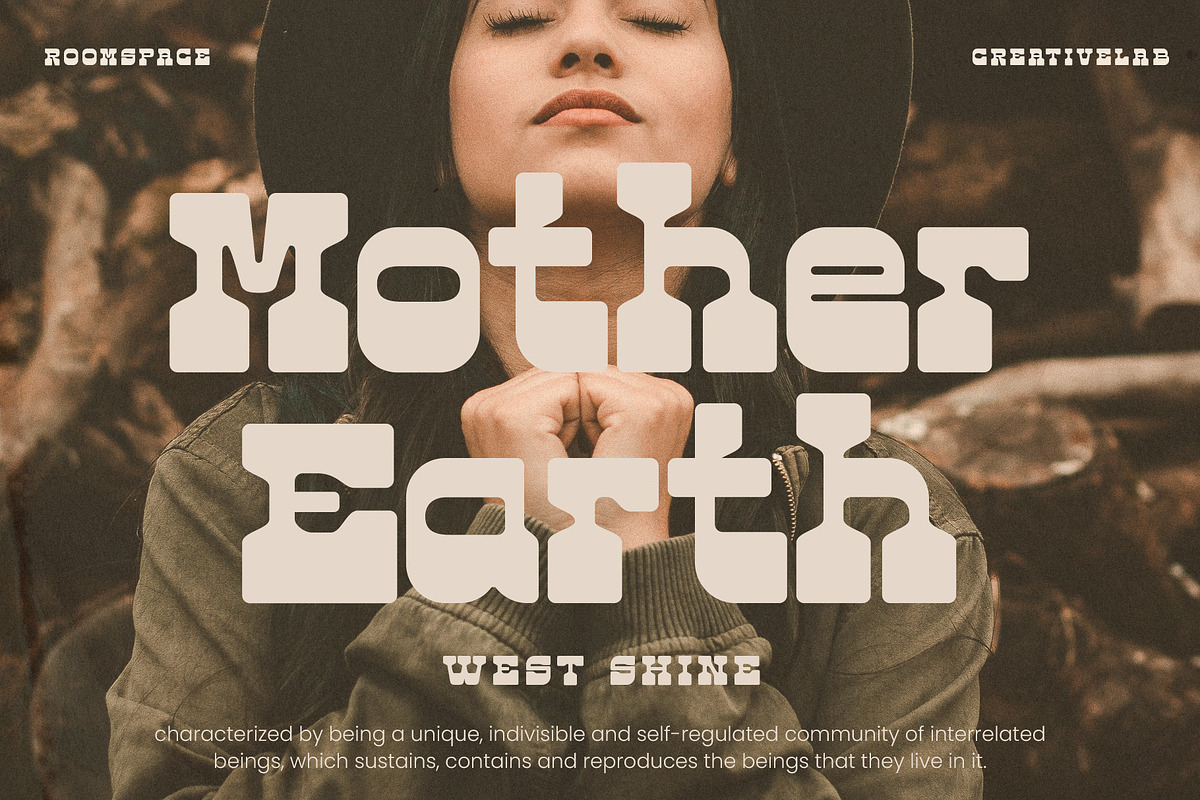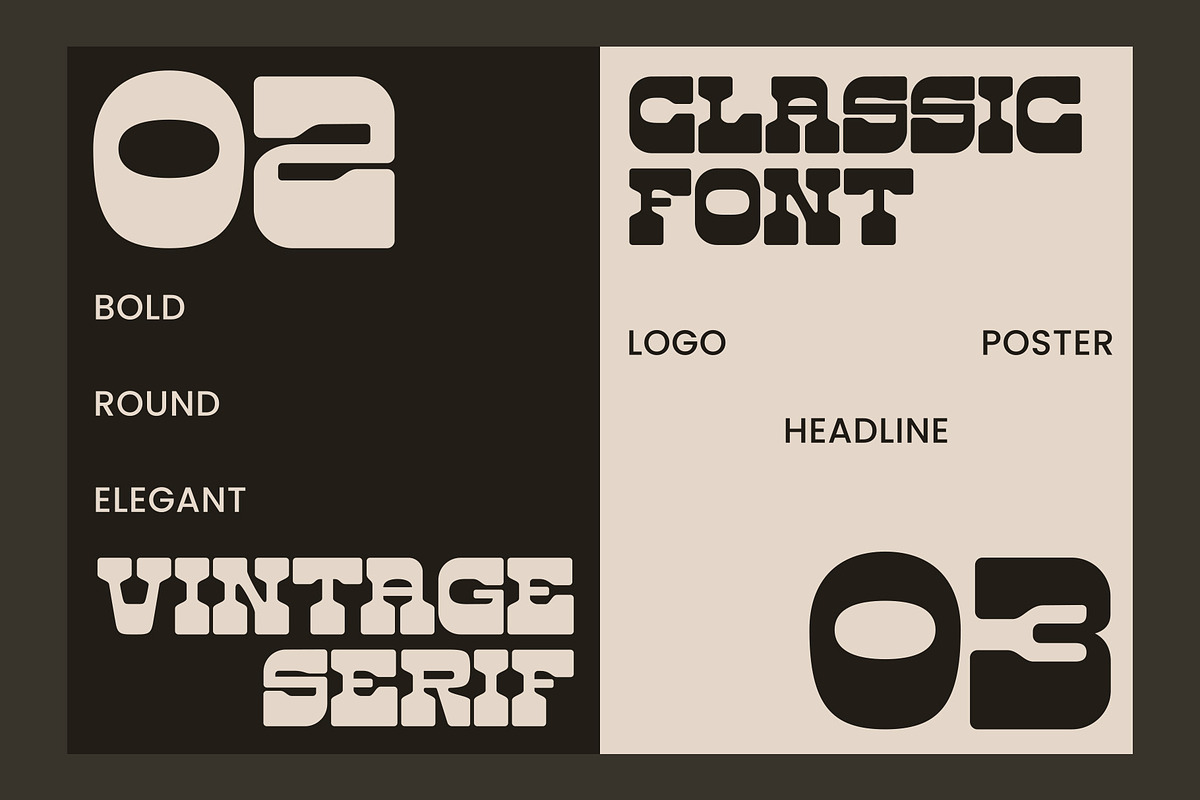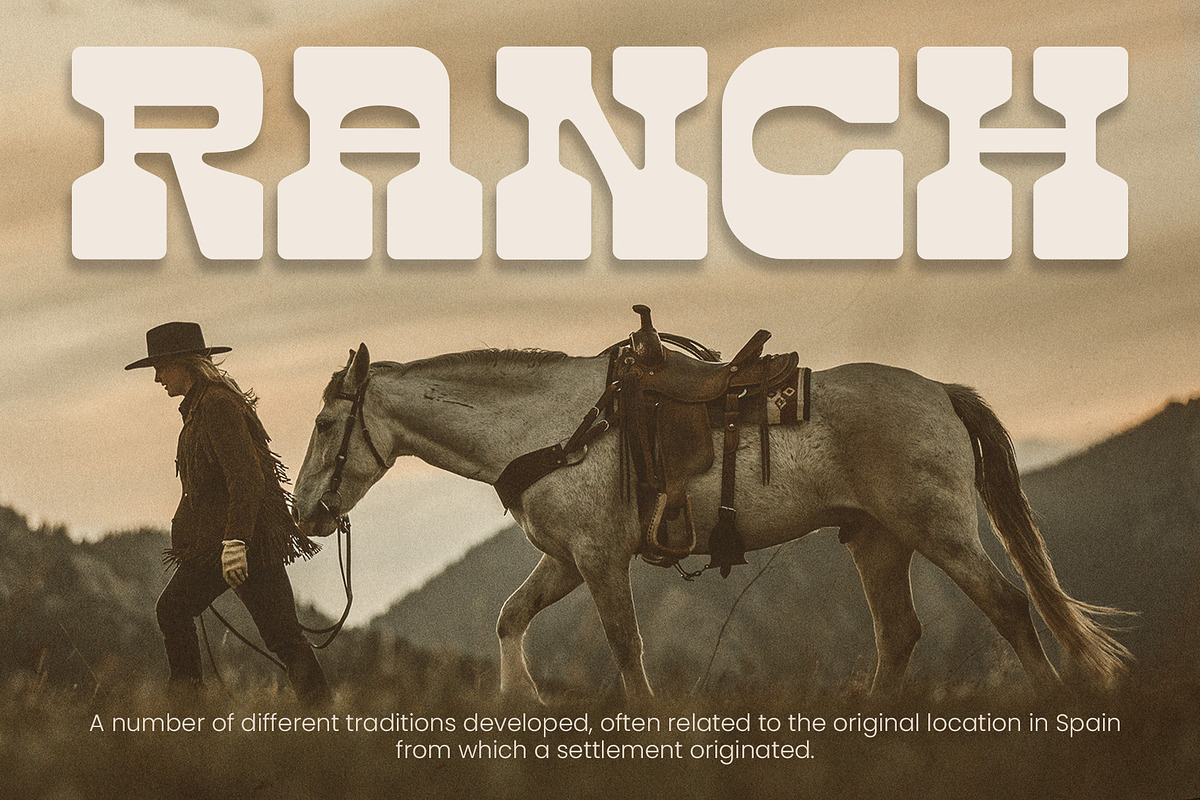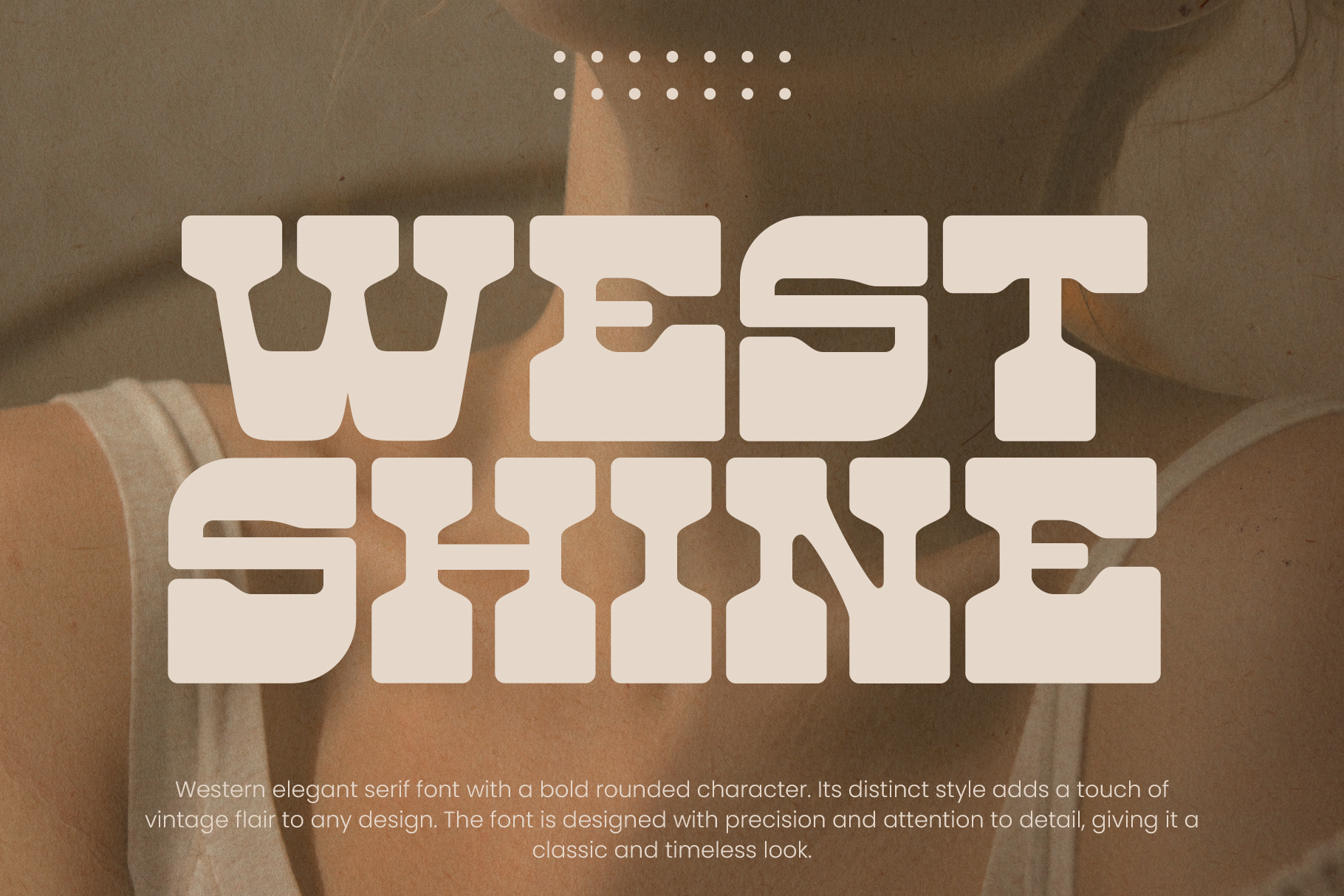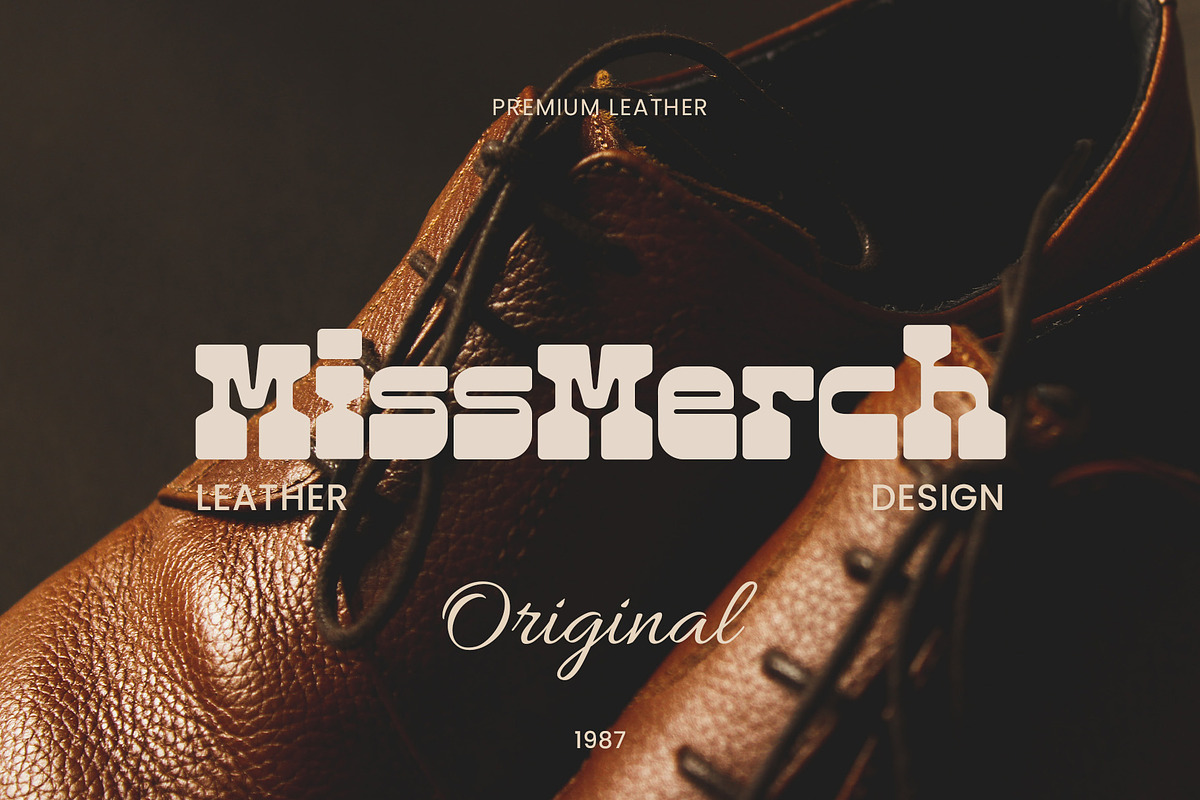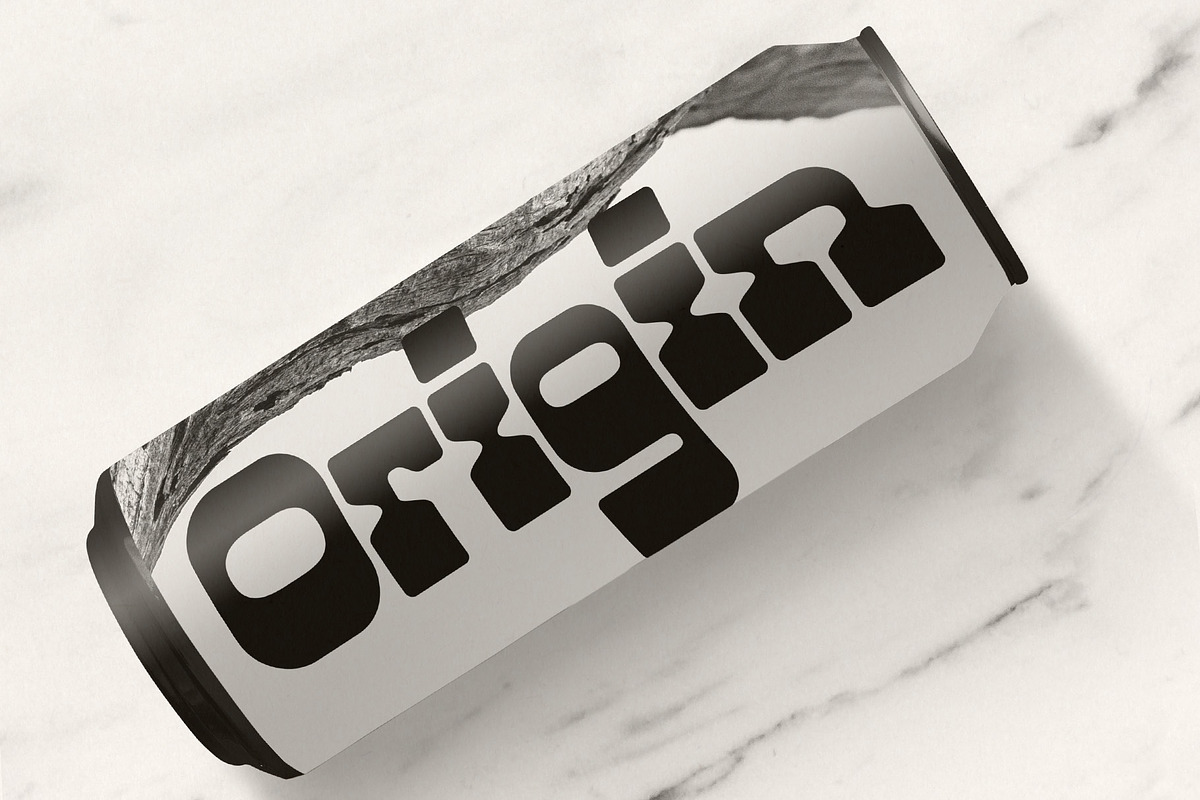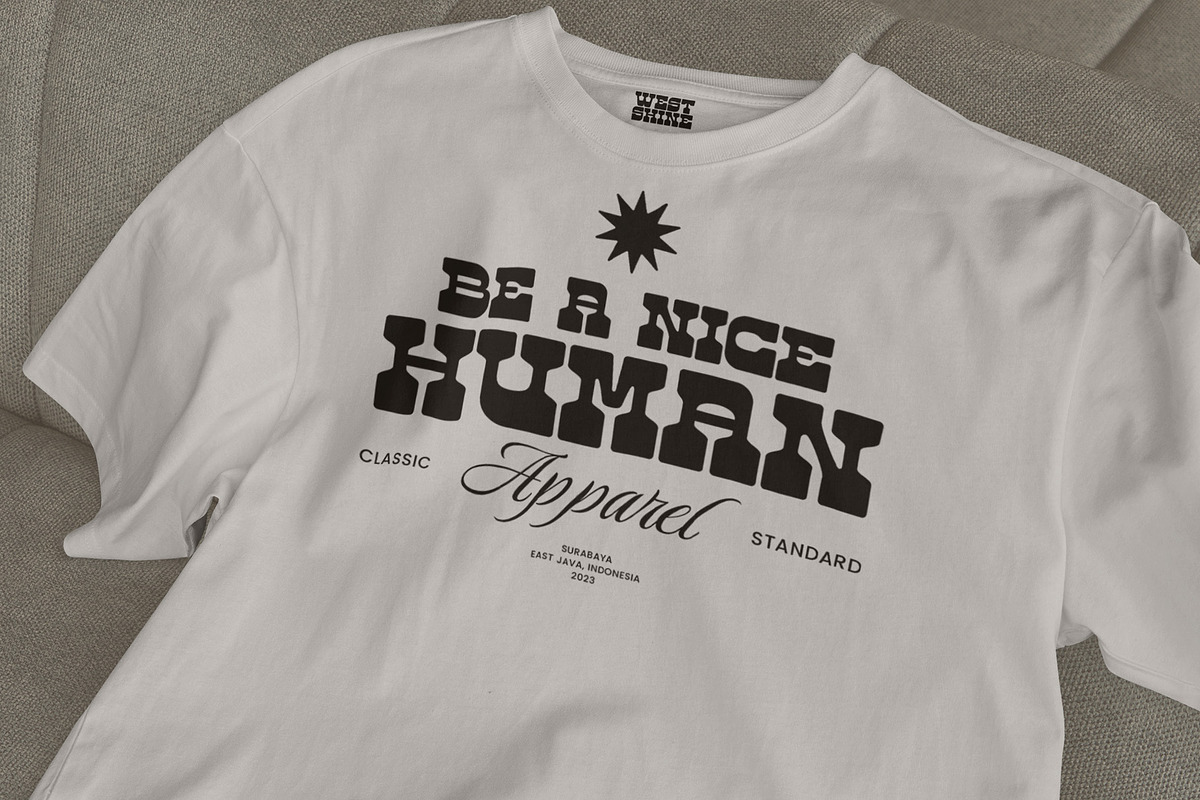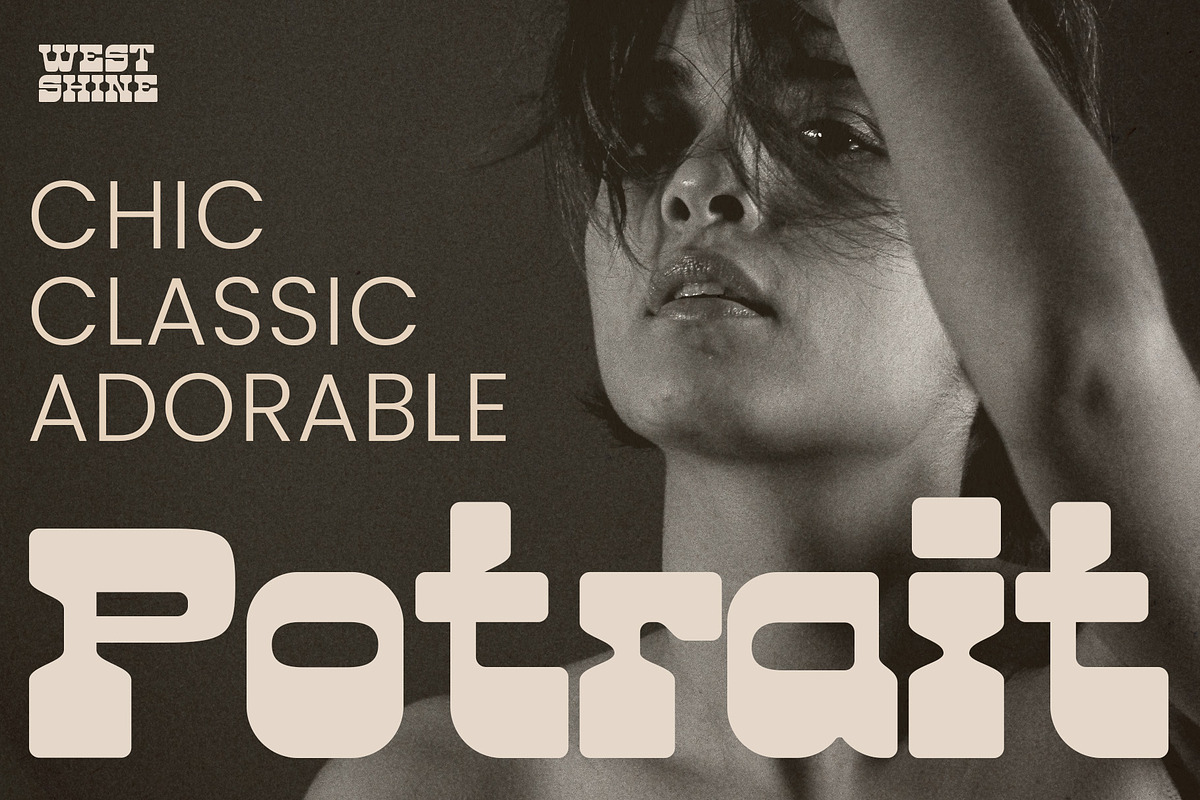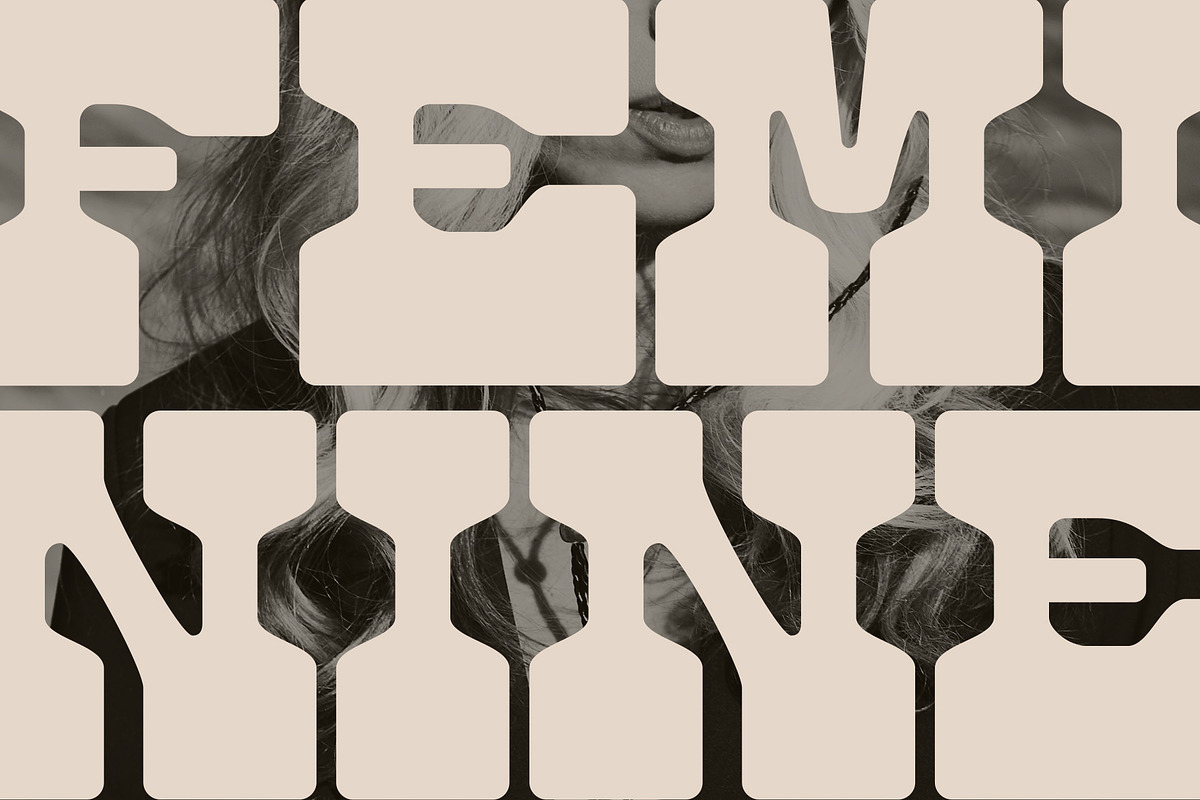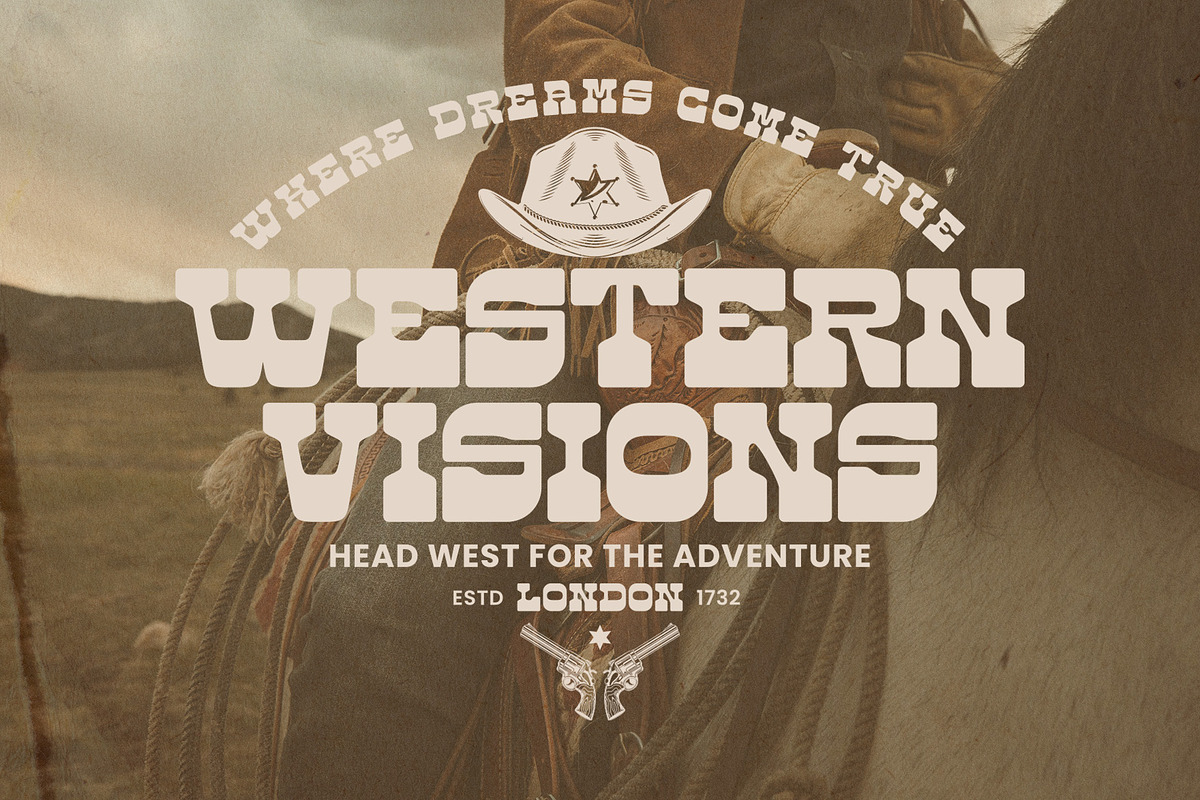
West Shine | Retro Western Font
West Shine is a retro Slab Serif font that captures the timeless charm of the Western cowboy era. Designed specifically for headlines and logos, this font adds the perfect touch to your design projects.
With its distinct Slab Serif characters, West Shine brings a strong, masculine, and captivating vibe. Combining retro design elements with a modern twist, this font creates a delightful and unique harmony.
With its bold and expressive features, West Shine exudes courage and adventure. Its well-balanced letter thickness and exceptional clarity ensure that your message is read loud and clear across all media.
West Shine is ready to bring your logos, headlines, and branding designs to life with its classic yet relevant Western cowboy flair. Publish West Shine font on Creativemarket and give your designs an unforgettable and authentic appeal.